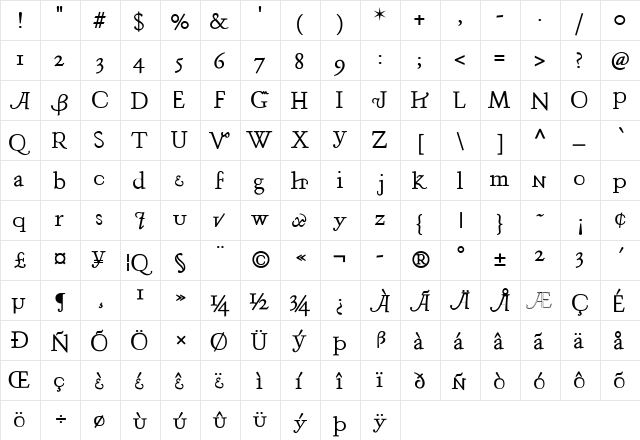
Distillation Regular
| Foundry | Designed by Elliott Peter Earls. The Apollo Program |
Design Context for Distillation Typeface
Distillation is a composed and adaptable typeface that performs quietly and consistently across a wide range of design contexts.